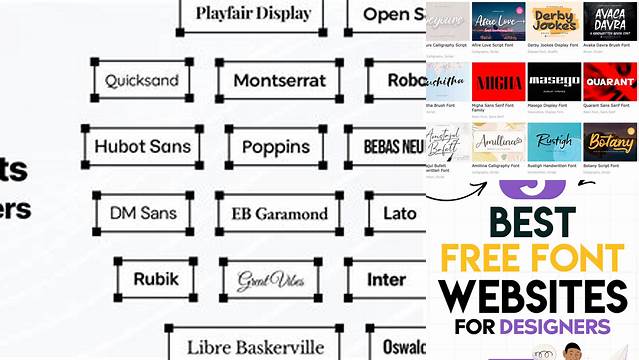
Best Free Font Websites For Designers (2024 Guide)
Finding the perfect font can be a game-changer for any design project. Whether you're crafting a sleek logo, designing an engaging website, or putting together a captivating marketing campaign, the right typography can elevate your work from good to great. But let's be real, high-quality fonts can sometimes come with a hefty price tag. That’s where the magic of free font websites comes in! Guys, there are tons of amazing resources out there offering stunning fonts without costing you a dime. This article will dive deep into the best free font websites for designers, helping you discover your next favorite typeface without breaking the bank. So, let’s jump right in and explore the world of free fonts!
Why Free Fonts are a Designer's Best Friend
Free fonts are an absolute lifesaver for designers, especially those just starting out or working on projects with tight budgets. You might be thinking, "Are free fonts really any good?" And the answer is a resounding YES! The internet is brimming with talented designers and foundries who generously offer their creations for free, either for personal or commercial use, or sometimes both. This means you can access a vast library of typefaces, from elegant serifs to modern sans-serifs, quirky display fonts to practical monospaced options, all without spending a single penny.
Using free fonts allows you to experiment with different styles and find the perfect match for your project without the financial commitment. This is particularly beneficial when you're exploring various design directions or working on multiple projects simultaneously. Imagine being able to test out a bold, futuristic font for a tech startup's logo, and then switch to a classic, sophisticated serif for a wedding invitation, all thanks to the availability of free resources. It’s like having a massive typographic playground at your fingertips!
In addition to the cost savings and flexibility, using free fonts can also expose you to unique and independent type designers. These creators often pour their hearts and souls into their work, and by using their fonts, you're not only enhancing your design but also supporting the independent design community. It’s a win-win situation for everyone involved! So, embrace the world of free fonts, guys. It’s a fantastic way to expand your typographic toolkit and create stunning designs without emptying your wallet.
Top Websites to Download Free Fonts
Navigating the vast landscape of free font websites can be a bit overwhelming. There are so many options out there, but not all of them are created equal. To help you cut through the clutter, I've compiled a list of some of the best websites where you can download high-quality free fonts for your design projects. These sites are known for their diverse collections, user-friendly interfaces, and clear licensing information, making your font-finding journey a breeze.
1. Google Fonts
Let's start with the powerhouse: Google Fonts. This is probably the most well-known and widely used free font library out there, and for good reason. Google Fonts boasts an extensive collection of over 1,000 fonts, all of which are open-source and completely free for both personal and commercial use. The beauty of Google Fonts lies in its simplicity and accessibility. The website is incredibly user-friendly, allowing you to easily browse fonts by category, popularity, trending status, or even specific font properties like weight, slant, and width. You can also preview fonts in various sizes and styles, and even test them out with your own custom text.
One of the biggest advantages of Google Fonts is its seamless integration with web design. You can easily embed fonts directly into your website using a simple code snippet, ensuring your typography looks consistent across all devices and browsers. This makes Google Fonts an invaluable resource for web designers, but it's also fantastic for print projects, presentations, and any other design application you can think of. Plus, because Google Fonts are hosted on Google's servers, they load quickly and reliably, ensuring a smooth user experience.
Beyond the sheer volume of fonts available, Google Fonts also prioritizes quality. The library includes a mix of classic typefaces and contemporary designs, so you're sure to find something that suits your aesthetic. Many of the fonts are designed by renowned foundries and typographers, ensuring you're working with professional-grade typography. And because the fonts are open-source, they're constantly being updated and improved by the design community.
So, if you're looking for a reliable, high-quality, and easy-to-use source of free fonts, Google Fonts should be your first stop. It’s a treasure trove for designers of all levels!
2. Font Squirrel
Next up, we have Font Squirrel, another fantastic resource for free fonts. What sets Font Squirrel apart is its commitment to offering only commercially licensed fonts. This means that every font you download from Font Squirrel is safe to use in your professional projects without any licensing worries. This is a huge plus for designers who need fonts they can confidently use in client work, branding materials, and other commercial applications.
Font Squirrel's website is well-organized and easy to navigate, with a variety of filters and search options to help you find the perfect font. You can browse fonts by classification (serif, sans-serif, script, etc.), tags (vintage, modern, bold, etc.), or even visual characteristics. The site also features a handy Font Identifier tool, which allows you to upload an image of a typeface and find similar fonts in their library. This is incredibly useful when you're trying to match a specific style or identify a font you've seen elsewhere.
In addition to its impressive font collection, Font Squirrel also offers a number of other helpful resources for designers. You'll find articles on typography best practices, font pairing tips, and even tutorials on how to create your own fonts. This makes Font Squirrel not just a place to download fonts, but also a valuable learning resource for improving your typographic skills. The site also has a section dedicated to web fonts, providing information and tools for optimizing fonts for online use.
Font Squirrel is known for its high standards when it comes to font quality. The team carefully curates its collection, ensuring that every font meets its criteria for technical excellence and aesthetic appeal. This means you can trust that the fonts you download from Font Squirrel will be well-designed and perform reliably across different platforms and applications. If you're serious about typography and need fonts that are both free and commercially licensed, Font Squirrel is an absolute must-visit.
3. DaFont
Now, let’s talk about DaFont. This website is a massive online archive of free fonts, boasting a collection of thousands of typefaces in a wide variety of styles. DaFont is a go-to resource for designers looking for something a little more unique or unconventional. You'll find everything from quirky display fonts and handwritten scripts to vintage-inspired typefaces and futuristic designs. It’s a real treasure trove for those seeking fonts with personality and character.
DaFont's website is organized into a clear and intuitive category system, making it easy to browse fonts by style, theme, or even specific characteristics. You can filter fonts by categories like fancy, foreign look, techno, gothic, basic, script, and more. This makes it simple to narrow down your search and find fonts that match the specific mood or aesthetic you're going for. The site also features a preview tool that allows you to type in your own text and see how it looks in different fonts, which is incredibly helpful for visualizing how a font will work in your design.
One thing to keep in mind with DaFont is that the licensing terms for fonts can vary. While many fonts are free for personal use, some may have restrictions on commercial use. It’s crucial to carefully review the licensing information provided by the font designer before using a font in a commercial project. DaFont clearly displays the license information for each font on its download page, so be sure to take a look before you hit that download button.
Despite the need to double-check licensing, DaFont remains an incredibly valuable resource for designers. Its sheer size and diversity of font offerings make it a fantastic place to discover new and interesting typefaces. Whether you're working on a poster, a logo, or a website, DaFont is likely to have a font that fits the bill. Just remember to always respect the font designer's terms of use.
4. Behance
Behance is not strictly a font website, but it's an incredible platform for designers to showcase their work, and often, that includes free fonts! Many talented type designers share their creations on Behance as a way to build their portfolio and connect with other creatives. This makes Behance a fantastic place to discover unique and high-quality fonts that you might not find anywhere else. It’s like stumbling upon hidden gems within a vibrant design community.
Navigating Behance for free fonts requires a bit of exploration, but the effort is well worth it. You can use the search function to look for keywords like "free font," "typeface," or specific font styles (e.g., "free sans-serif font"). You can also follow type designers or browse projects tagged with typography-related terms to discover new fonts. The beauty of finding fonts on Behance is that you're often directly supporting the designers who created them. You can see their other work, learn about their design process, and even connect with them directly.
One of the advantages of using Behance is that the fonts you find are often presented in the context of a design project. This gives you a better sense of how the font looks in use and can inspire you with new design ideas. You'll often see fonts showcased in mockups, posters, logos, and other real-world applications, which can help you visualize how they might work in your own projects.
As with other free font websites, it’s essential to pay attention to the licensing terms when downloading fonts from Behance. Designers typically specify the license under which they're offering their fonts, so be sure to read the fine print before using a font in a commercial project. However, the unique and creative fonts you can find on Behance make it a valuable resource for any designer looking to expand their typographic toolkit. So, dive into the Behance community and see what typographic treasures you can unearth!
5. Creative Market (Free Goods Section)
Creative Market is a popular marketplace for design assets, including fonts, graphics, templates, and more. While Creative Market is primarily a paid resource, they also have a fantastic "Free Goods" section that offers a rotating selection of freebies, including fonts. This makes Creative Market a great place to check regularly for new free font offerings. It’s like a surprise gift for designers that keeps on giving!
The Free Goods section on Creative Market is updated weekly, so there's always something new to discover. You might find a complete font family, a set of decorative fonts, or even a collection of hand-lettered fonts. The quality of the free fonts on Creative Market is typically very high, as they are often created by professional designers and font foundries. This means you can access premium-quality typefaces without paying a premium price.
To find the Free Goods section, simply visit the Creative Market website and look for the "Free Goods" link in the navigation menu. You'll find a curated selection of free fonts, graphics, and other design resources. Each freebie is available for a limited time, so it's a good idea to download anything that catches your eye before it's gone. Creative Market also sends out a weekly email newsletter highlighting the latest free offerings, so you can stay up-to-date on the newest fonts and design assets.
Even though the free fonts on Creative Market are available for free, they typically come with a commercial license, allowing you to use them in your professional projects. However, it's always a good idea to double-check the licensing terms for each font before using it, just to be sure. Creative Market’s Free Goods section is a fantastic way to build your font library with high-quality typefaces without breaking the bank. It’s a must-visit for any designer looking for free design resources.
Tips for Choosing the Right Free Font
Okay, so you've got a treasure trove of free fonts at your fingertips. But how do you choose the right one for your project? With so many options available, it can feel a bit overwhelming. Don't worry, guys! Here are some tips to help you navigate the world of free fonts and select the perfect typeface for your design needs. These tips will guide you in making the best choices for your projects, ensuring that your typography enhances your overall design.
1. Consider the Project's Purpose
First and foremost, think about the purpose of your project. What message are you trying to convey? What is the overall tone and style you're aiming for? The font you choose should align with the project's goals and target audience. For example, if you're designing a logo for a high-end fashion brand, you'll likely want a font that exudes elegance and sophistication. A classic serif or a clean sans-serif might be a good choice. On the other hand, if you're creating a poster for a music festival, you might opt for a bolder, more playful font that reflects the energy of the event.
Think about the context in which the font will be used. Will it be used primarily for headlines, body text, or both? Will it be used online or in print? Different fonts are better suited for different applications. For example, fonts with delicate serifs may look beautiful in print but can become illegible on screen. Similarly, fonts that are highly decorative may work well for short headlines but can be difficult to read in large blocks of text. By considering the project's purpose and context, you can narrow down your font choices and select a typeface that is both visually appealing and functional.
2. Think About Readability and Legibility
Readability and legibility are crucial factors to consider when choosing a font, especially for body text. Legibility refers to how easy it is to distinguish individual letters from one another. A legible font has clear and distinct letterforms that are easily recognizable. Readability, on the other hand, refers to how easily the text flows when read in large blocks. A readable font has a comfortable rhythm and spacing that allows the reader to move smoothly through the text.
When selecting a font for body text, prioritize readability and legibility. Avoid fonts that are overly decorative, condensed, or have unusual letterforms, as these can make the text difficult to read. Opt for fonts with a generous x-height (the height of the lowercase letters), clear letter spacing, and a balanced stroke contrast. Sans-serif fonts are often a good choice for body text, as they tend to be more legible on screen. However, many serif fonts can also be highly readable, especially in print. Test your font choice by setting a sample of body text and reading it yourself. Can you easily read the text without straining your eyes? If not, it's probably best to choose a different font.
3. Consider Font Pairing
Font pairing is the art of combining two or more fonts in a way that is visually harmonious and effective. A well-chosen font pairing can elevate your design and create a sense of visual interest and hierarchy. However, a poorly chosen pairing can be jarring and detract from the overall design. When selecting free fonts, it's essential to think about how they will work together.
A common approach to font pairing is to combine a serif font with a sans-serif font. This creates a contrast that can be visually appealing and helps to differentiate headlines from body text. For example, you might pair a classic serif font like Times New Roman with a clean sans-serif font like Helvetica. Another approach is to combine two fonts from the same font family but with different weights or styles. For example, you might use a bold weight for headlines and a regular weight for body text. This creates a sense of consistency while still providing visual variation.
When pairing fonts, it's essential to consider the overall mood and style of your project. Do the fonts complement each other? Do they convey the same tone and message? Avoid pairing fonts that are too similar, as this can create a sense of visual monotony. Similarly, avoid pairing fonts that are too different, as this can be overwhelming and distracting. Experiment with different font combinations and see what works best for your project. There are also many online resources and tools that can help you with font pairing, such as font pairing generators and typography guides.
4. Check the Font License
This is a crucial step! Before using any free font in your project, always check the font license. Font licenses specify how you are allowed to use the font, whether it's for personal or commercial projects. Many free fonts are licensed under open-source licenses, such as the SIL Open Font License (OFL), which allows for commercial use and modification. However, some fonts may have restrictions on commercial use or require attribution to the font designer. Failing to comply with the font license can result in legal issues, so it's essential to do your due diligence.
The font license is typically included in a text file within the font's download package. Take the time to read the license carefully and make sure you understand the terms of use. If you're unsure about anything, it's always best to err on the side of caution and contact the font designer or foundry for clarification. Many free font websites also provide clear licensing information on their font download pages, making it easier to understand how you can use the font. By checking the font license, you can ensure that you're using the font legally and ethically.
5. Test the Font
Finally, before committing to a font, always test it out in your design. Download the font and use it in your software of choice (Photoshop, Illustrator, InDesign, etc.). See how it looks in different sizes and styles. Test it with your headlines, body text, and any other text elements in your design. Pay attention to how the font renders on different devices and browsers, especially if you're designing for the web. A font that looks great on your computer may not look as good on a mobile device or in a different browser.
Testing the font will help you identify any potential issues, such as poor legibility, inconsistent letter spacing, or rendering problems. It will also give you a better sense of how the font works in the context of your design. Don't be afraid to experiment with different fonts and see what works best for your project. By taking the time to test the font, you can ensure that you're making the right choice and that your typography will look its best.
Conclusion: Unleash Your Creativity with Free Fonts
So, there you have it! A comprehensive guide to the best free font websites for designers and some essential tips for choosing the right font for your projects. Free fonts are an invaluable resource for designers, providing access to a vast library of high-quality typefaces without the hefty price tag. By exploring the websites mentioned in this article and following the tips outlined above, you can build your font library, enhance your design skills, and create stunning typography without breaking the bank.
Remember, guys, the world of typography is vast and exciting. Don’t be afraid to experiment with different fonts and find your own unique style. With the abundance of free fonts available, the possibilities are endless. So, go forth, explore, and unleash your creativity! Happy designing!